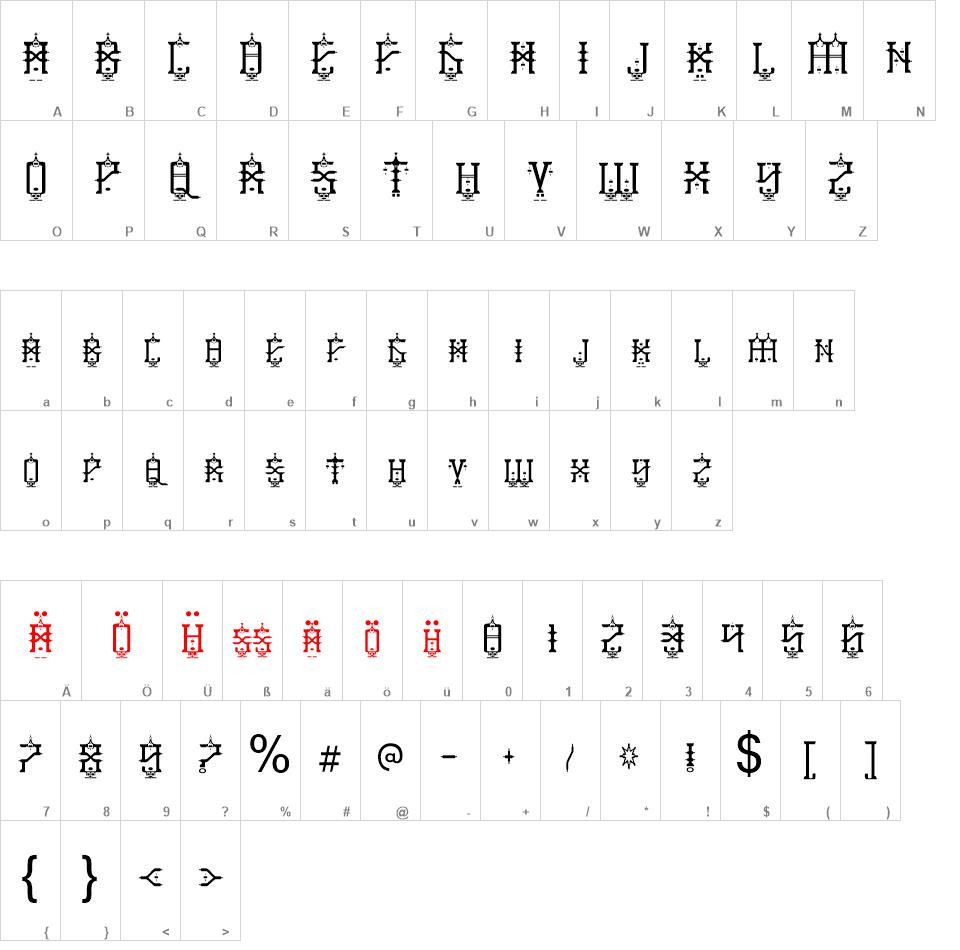
Baby Jeepers
Baby Jeepers font
Baby Jeepers
Baby Jeepers is a modular, ornamental small caps headliner inspired by lettering on ancient Martian temples.